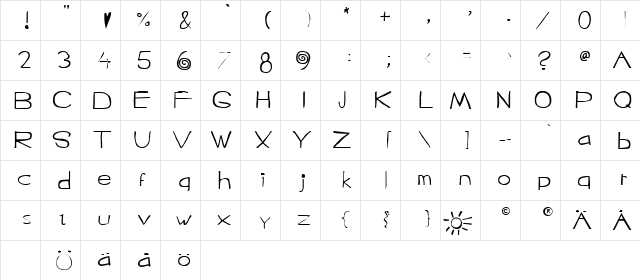
Jagular Regular Font Preview
Jagular Regular
Jagular Regular Font Details
Design Context for Jagular Typeface
Jagular is a composed and adaptable typeface that performs quietly and consistently across a wide range of design contexts.